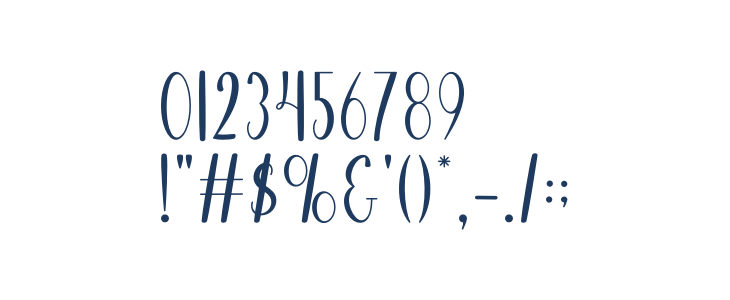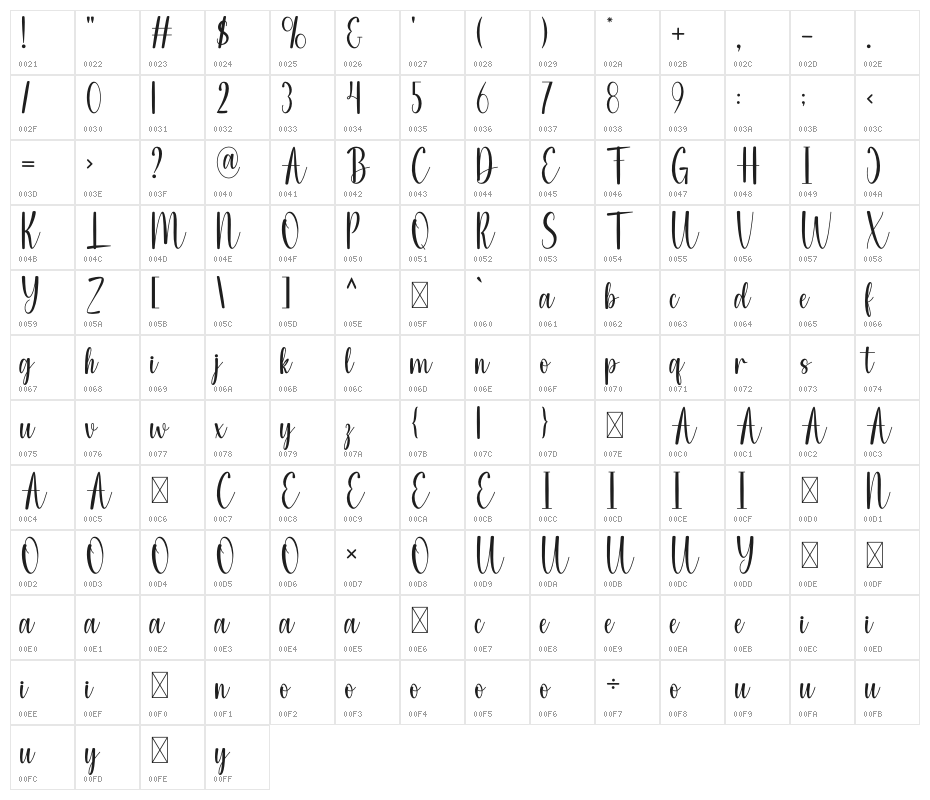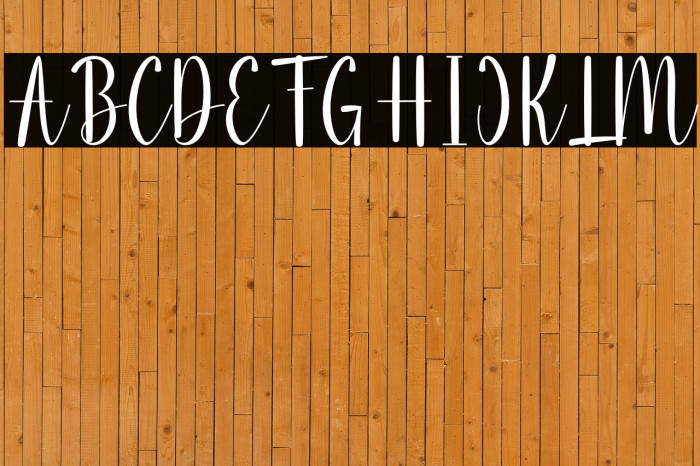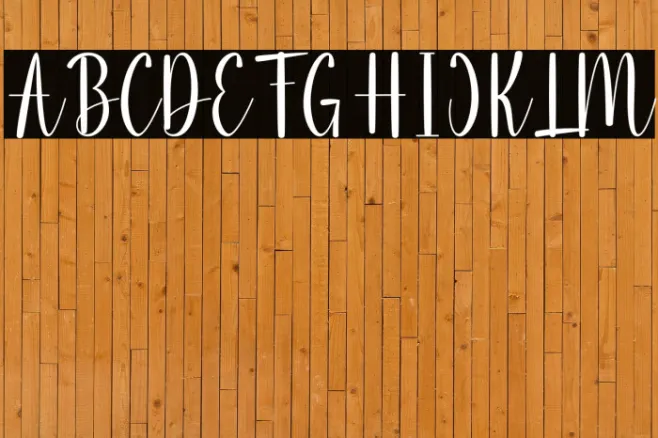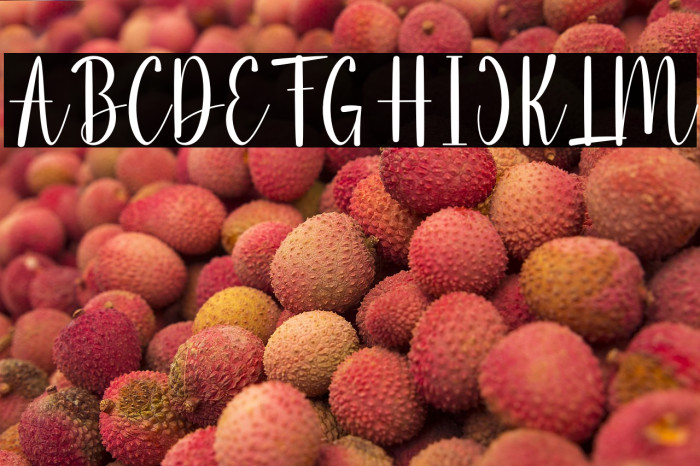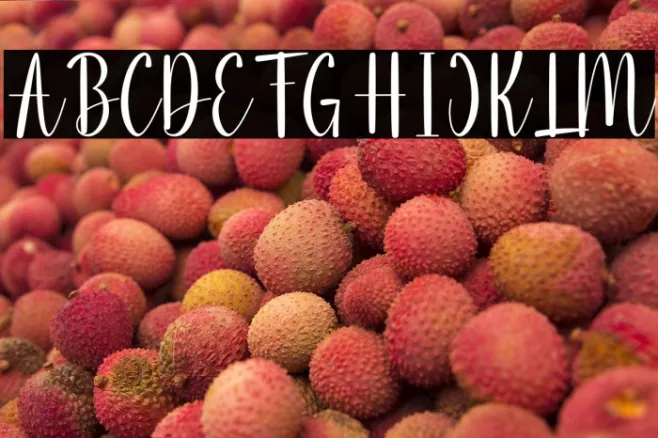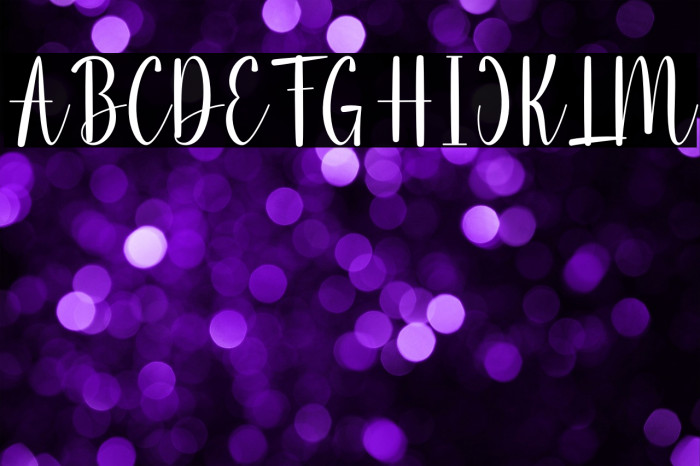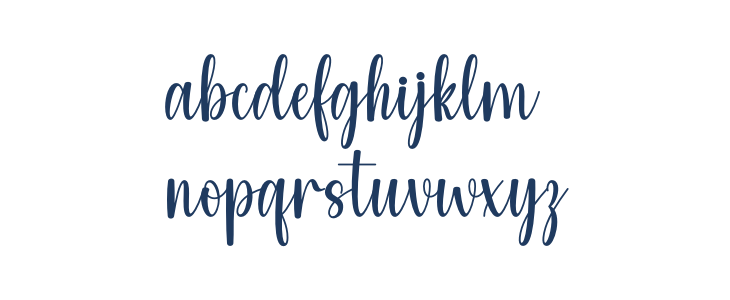
Gladiola Font
Gladiola Description
This font features a playful and elegant script style with a modern twist. The characters are crafted with smooth, flowing lines that give a sense of movement and grace. Uppercase letters are tall and slender, while lowercase letters maintain a consistent flow with slightly exaggerated loops and curves. The numbers are distinct and maintain the same whimsical style, ensuring readability. Special characters are creatively designed to match the overall aesthetic, making this font suitable for a variety of creative projects.
Use CaseLogos, Invitations, Decorative text
Proposed ProjectsIdeal for wedding invitations, greeting cards, branding, and logo design.